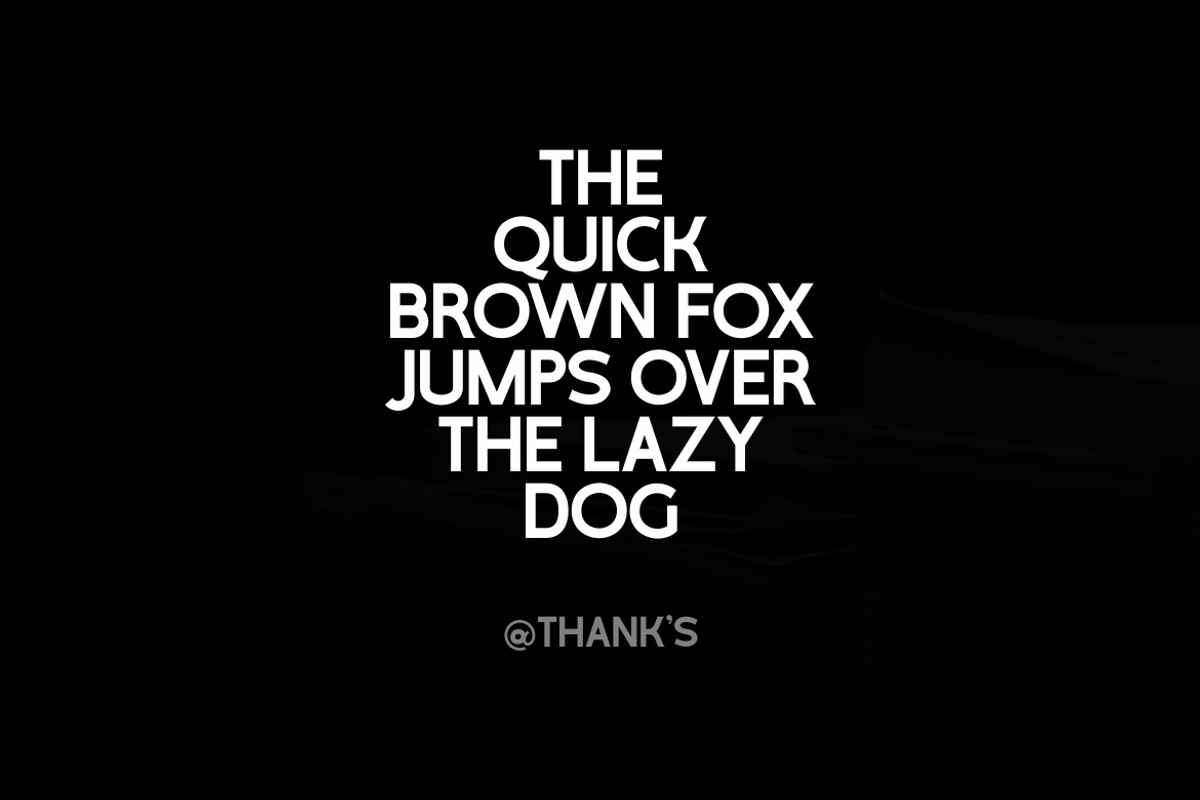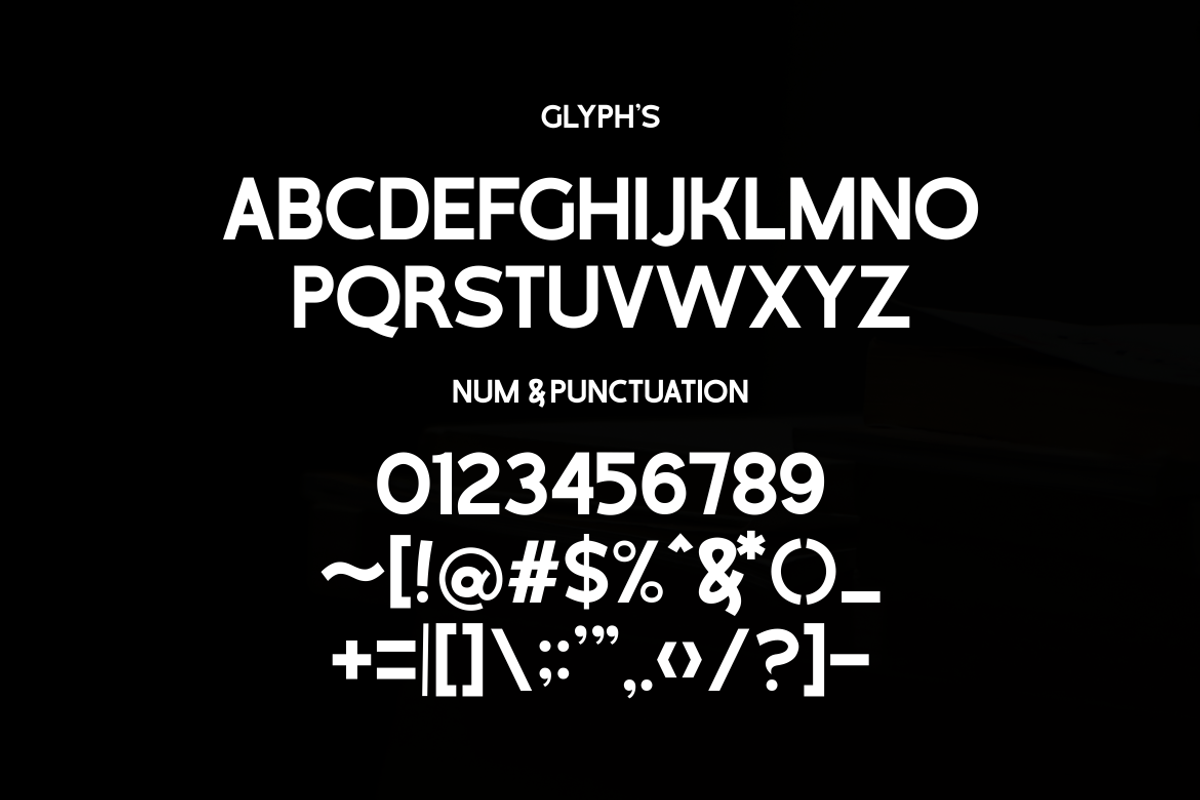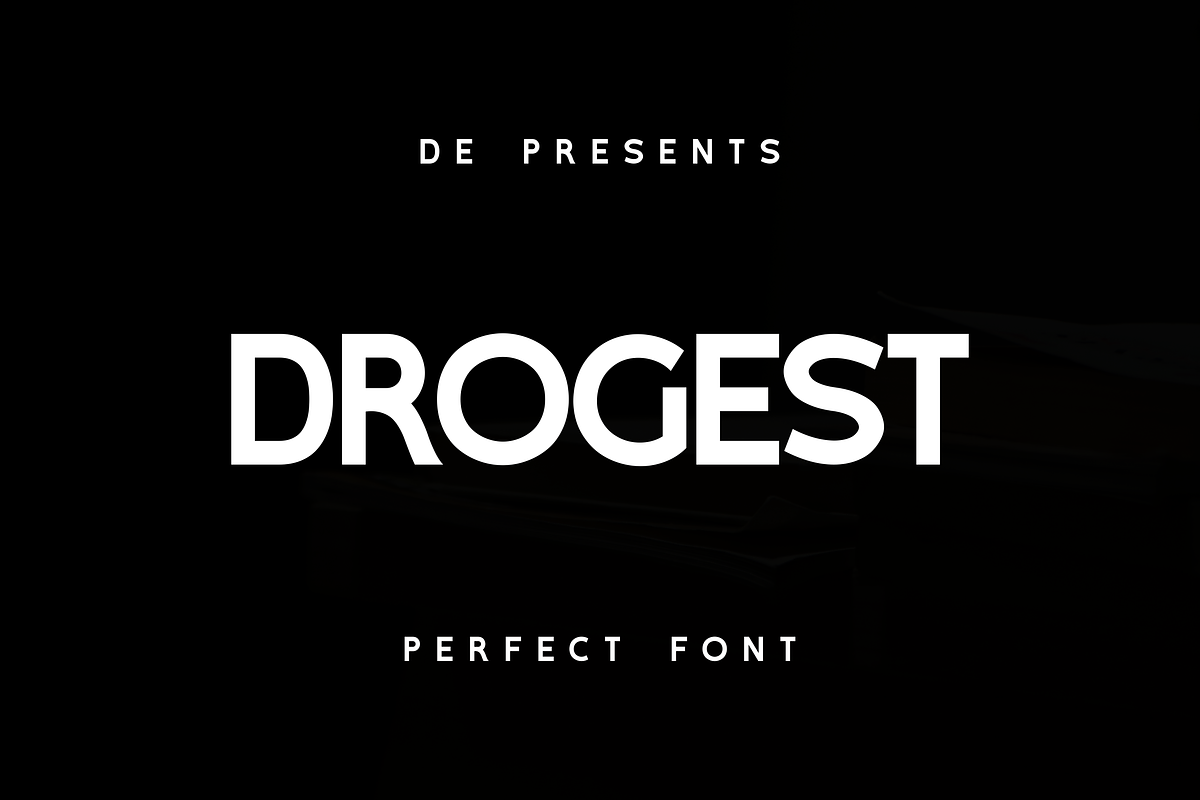
Drogest - Sans Perfect Edition
DROGEST Font is a powerful, bold, and sturdy typeface designed to make a statement in any design. Its strong lines and robust structure make it a perfect choice for medium to large print media, ensuring clear legibility and visual impact. DROGEST is ideal for designs that demand attention and a confident, solid presence.